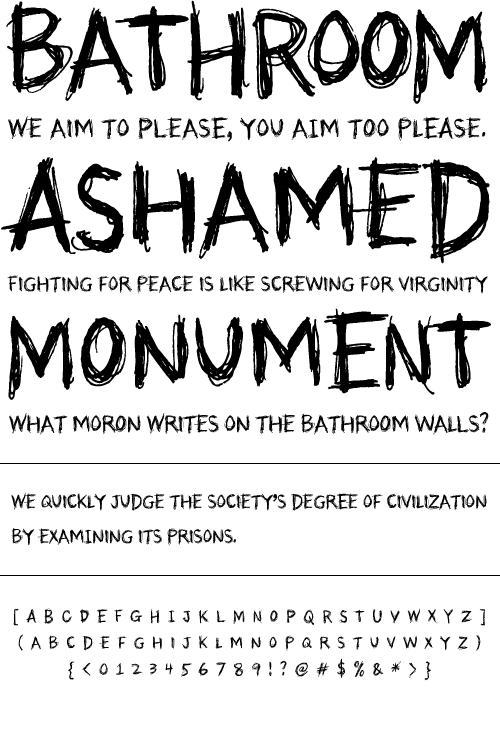
Vexed
Vexed is a hand-sketched font which contains two different versions of uppercase letters. This allows the designer to mix and match letterforms to make custom designs that appear to be hand drawn.
Also included is a bonus set of sketchy graphic extras.